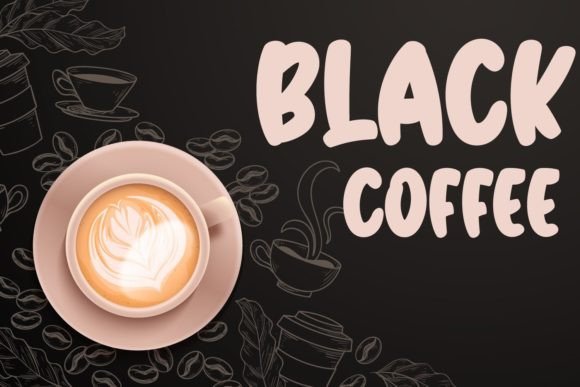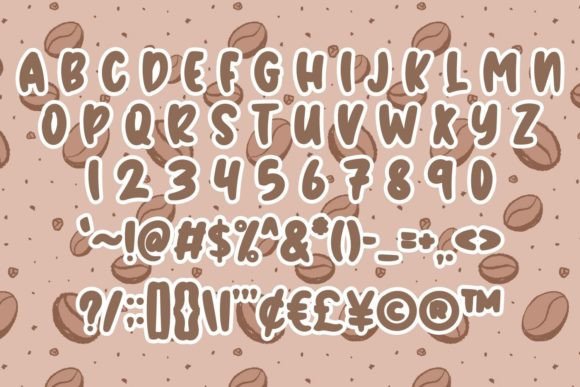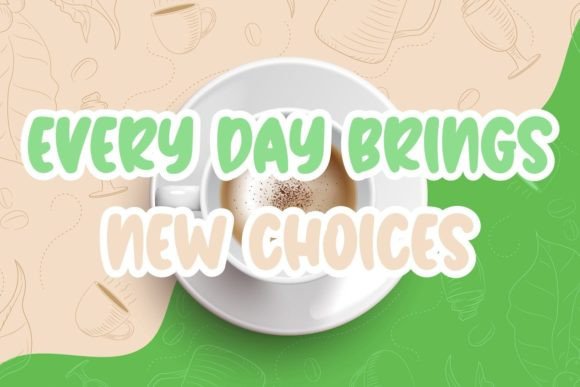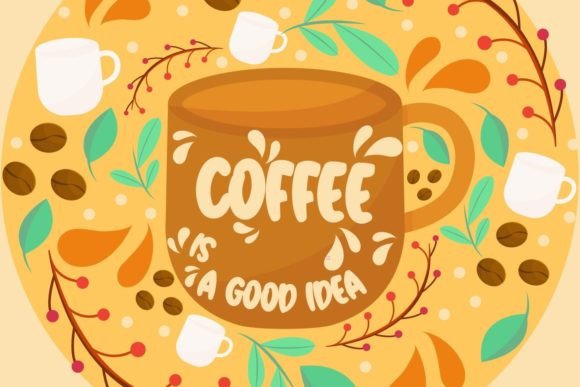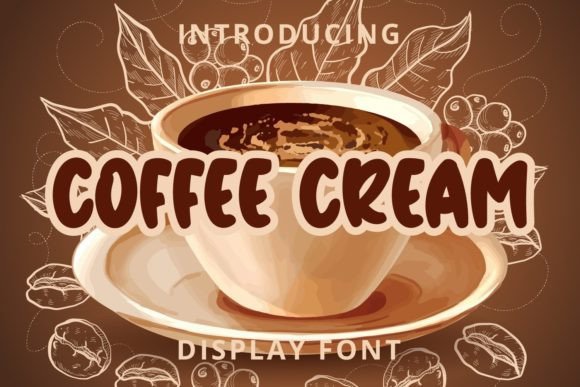
Coffee Cream Font: The Perfect Addition to Your Design Projects
Coffee Cream is a cool and cute looking display font that can add a touch of youth and joy to any design project. Whether you’re creating a party invitation, a swimming gathering announcement, or any other design that requires a playful and fun vibe, Coffee Cream font is the perfect choice.
What Makes Coffee Cream Font So Special?
Coffee Cream font is a unique and eye-catching display font that is sure to grab attention. Its cool and cute design makes it perfect for projects that require a youthful and energetic feel. The font is highly versatile and can be used for a wide range of design projects, from party invitations and flyers to social media graphics and website headers.
Key Features of Coffee Cream Font
- Cool and Cute Design: Coffee Cream font has a unique and adorable design that is sure to make your design projects stand out.
- Highly Versatile: The font can be used for a wide range of design projects, from party invitations and flyers to social media graphics and website headers.
- Easy to Read: Despite its playful design, Coffee Cream font is easy to read and can be used for both headings and body text.
- Supports Multiple Languages: The font supports multiple languages, making it perfect for designers who work with clients from around the world.
How to Use Coffee Cream Font in Your Design Projects
Coffee Cream font is easy to use and can be incorporated into your design projects in a few simple steps:
- Choose the Right Font Size: Choose the right font size for your design project, depending on the type of project and the desired effect.
- Experiment with Different Colors: Experiment with different colors and textures to find the perfect combination for your design project.
Design Ideas Using Coffee Cream Font
Coffee Cream font is a versatile font that can be used for a wide range of design projects. Here are some design ideas to get you started:
- Party Invitations: Use Coffee Cream font to create fun and playful party invitations that are sure to grab attention.
- Swimming Gathering Announcements: Create eye-catching swimming gathering announcements that feature the Coffee Cream font.
- Social Media Graphics: Use Coffee Cream font to create engaging social media graphics that showcase your brand’s personality.
- Website Headers: Add a touch of youth and joy to your website headers with Coffee Cream font.
Tips for Using Coffee Cream Font Effectively
Here are some tips for using Coffee Cream font effectively in your design projects:
- Use it Sparingly: Use Coffee Cream font sparingly to avoid overwhelming your design project.
- Pair it with Other Fonts: Pair Coffee Cream font with other fonts to create a unique and visually appealing design.
- Experiment with Different Colors: Experiment with different colors and textures to find the perfect combination for your design project.
Coffee Cream font is a cool and cute looking display font that can add a touch of youth and joy to any design project. Its highly versatile design makes it perfect for a wide range of projects, from party invitations and flyers to social media graphics and website headers. By following the tips outlined in this article, you can use Coffee Cream font effectively and create stunning design projects that showcase your creativity and skill.